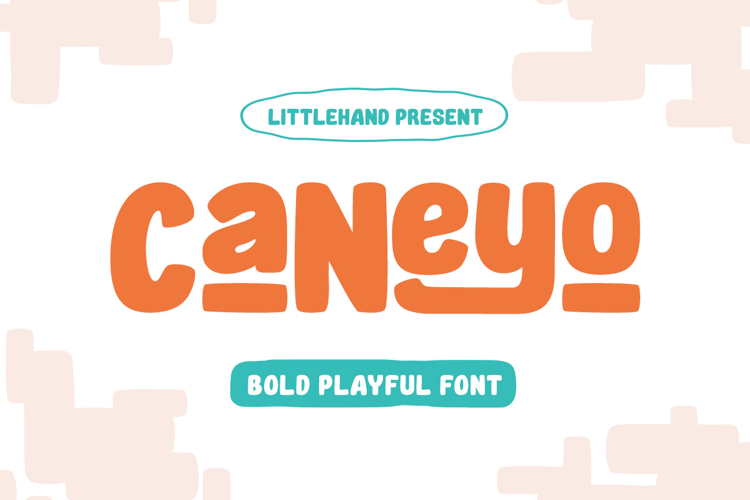
Caneyo Font
Caneyo is a bold playful font that brings instant fun to the page. With chunky shapes, soft corners, and bouncy letterforms, it feels friendly, confident, and full of energy—like colorful cut-paper titles on a creative board. The thick strokes give strong visibility, while the rounded details keep everything
by Letterhend Studio